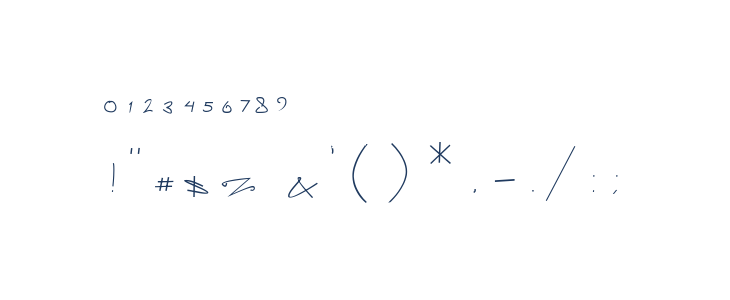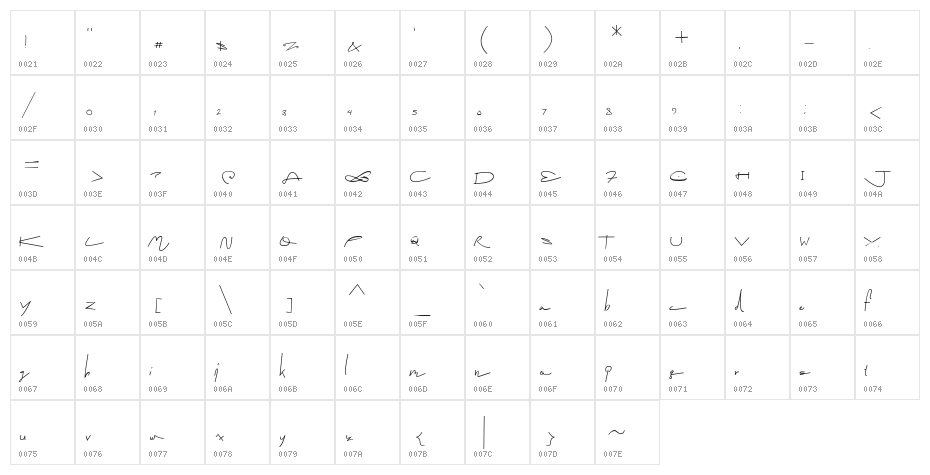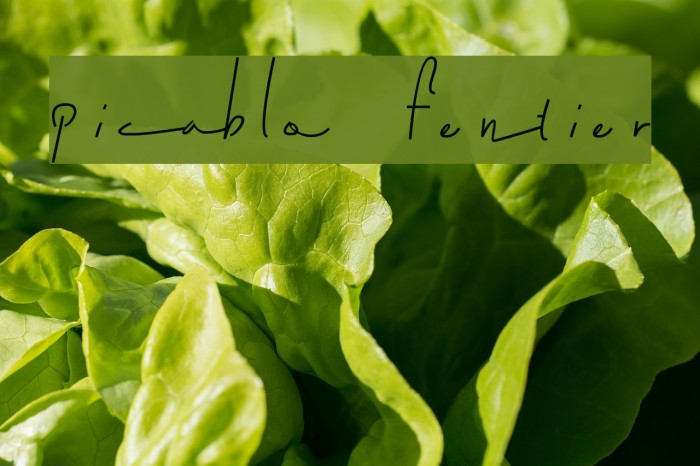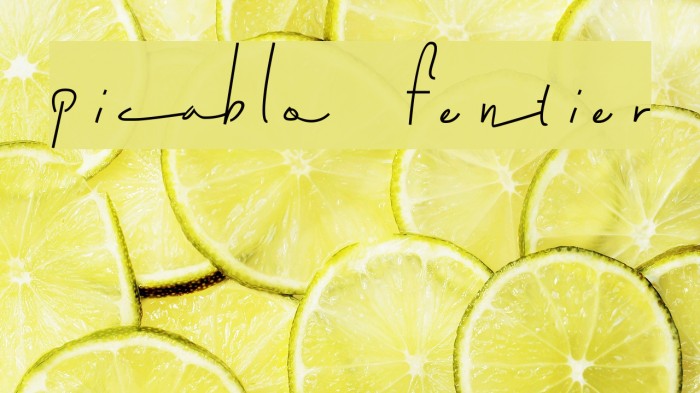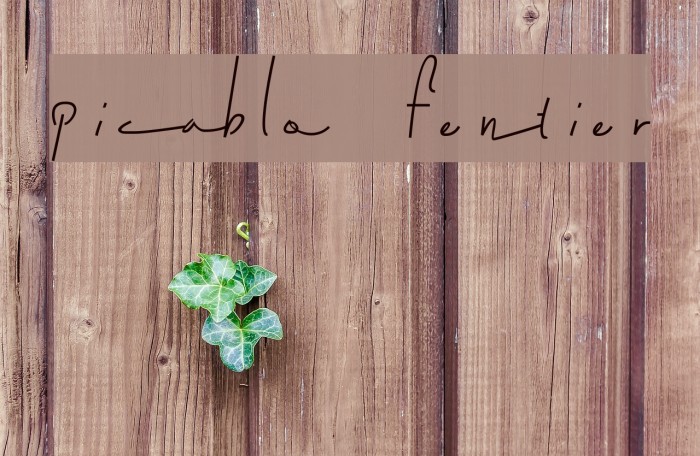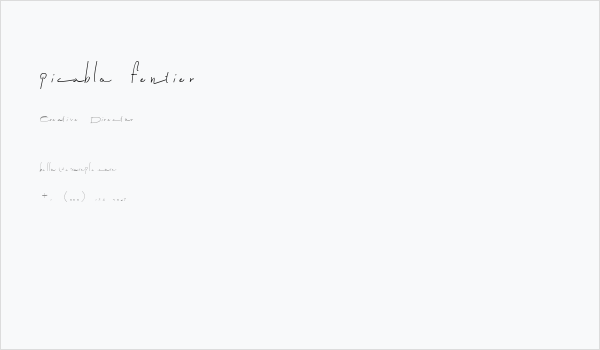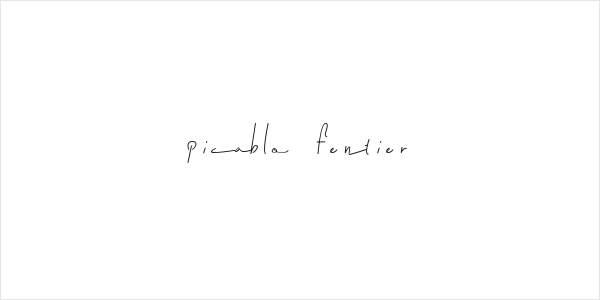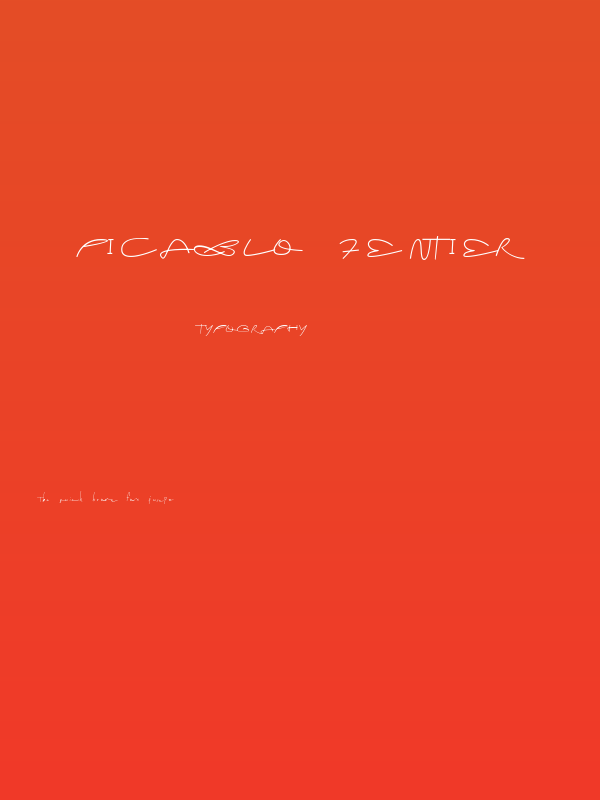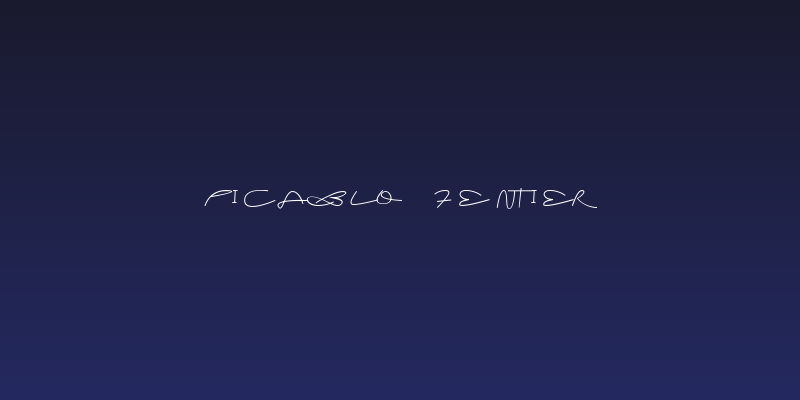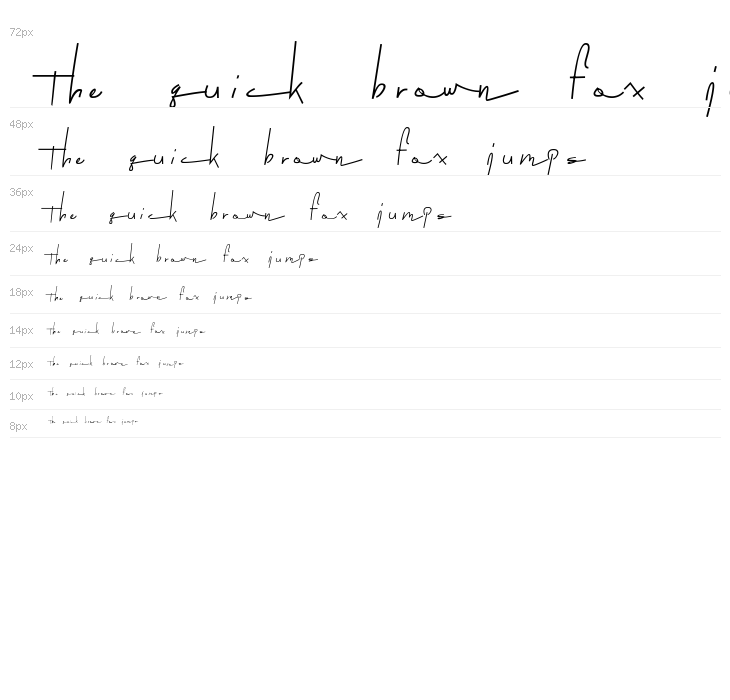
picablo fentier Font
picablo fentier Description
This font features a unique and artistic style, characterized by its flowing, interconnected strokes that give it a handwritten appearance. The uppercase letters are particularly distinctive, with some characters exhibiting elaborate loops and swirls, while others maintain a more straightforward, yet still elegant form. The lowercase letters continue this theme, offering a cohesive look that complements the uppercase set. Numbers and special characters are crafted with the same attention to detail, ensuring consistency throughout the font. This font's overall aesthetic is both modern and expressive, making it suitable for creative projects that require a personal touch.
| Overall Style | Modern, Artistic |
| Use Case | Logos, Invitations, Artistic Branding |
| Proposed Projects | Ideal for creative projects such as invitations, greeting cards, artistic branding, and personal blogs. |